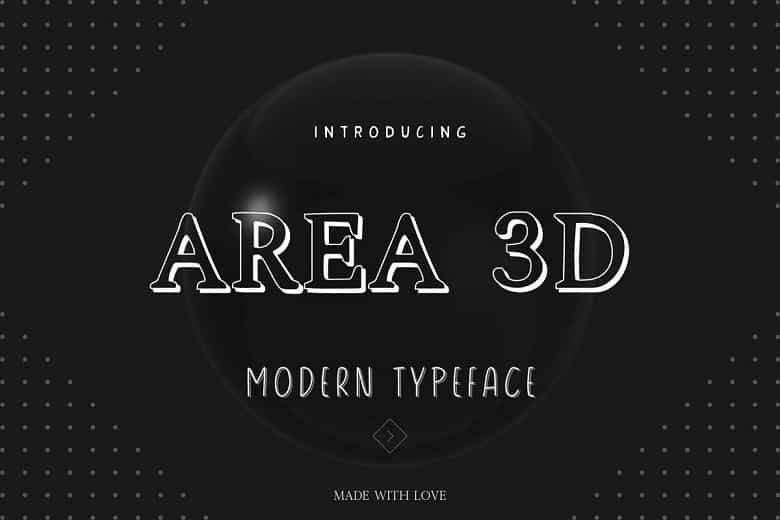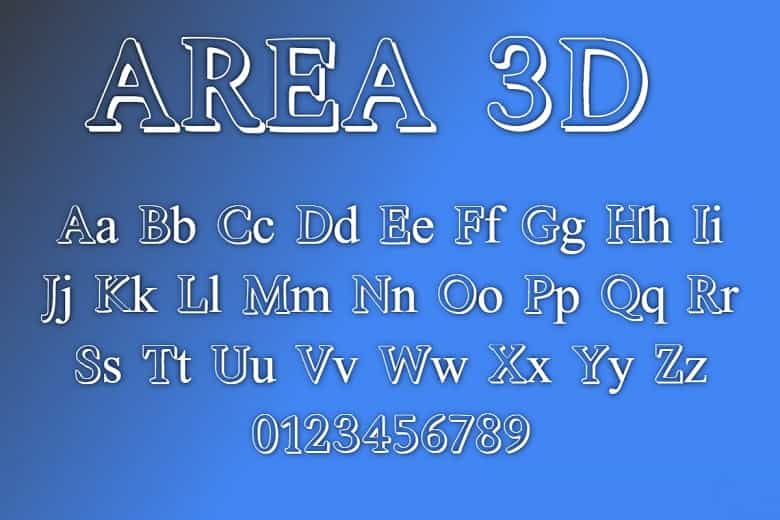
AREA 3D Display font is an artsy and playful, as well as smooth and sophisticated 3D font that would be perfect for any design, particularly for the youth, to add a playful and lively feel to any project. This font has both the capitalized and small letters, numbers, punctuations, symbols and supports Latin extended characters.